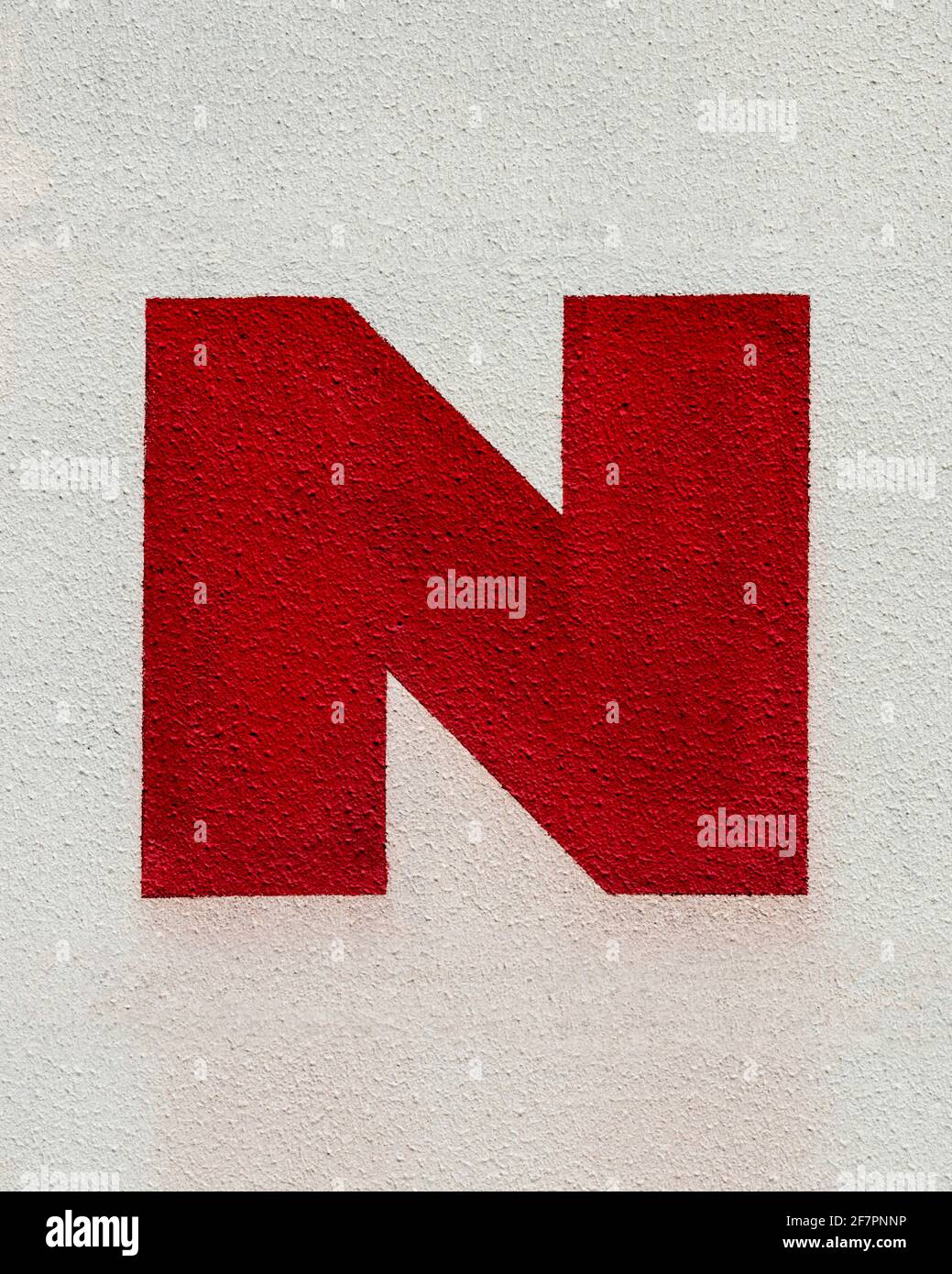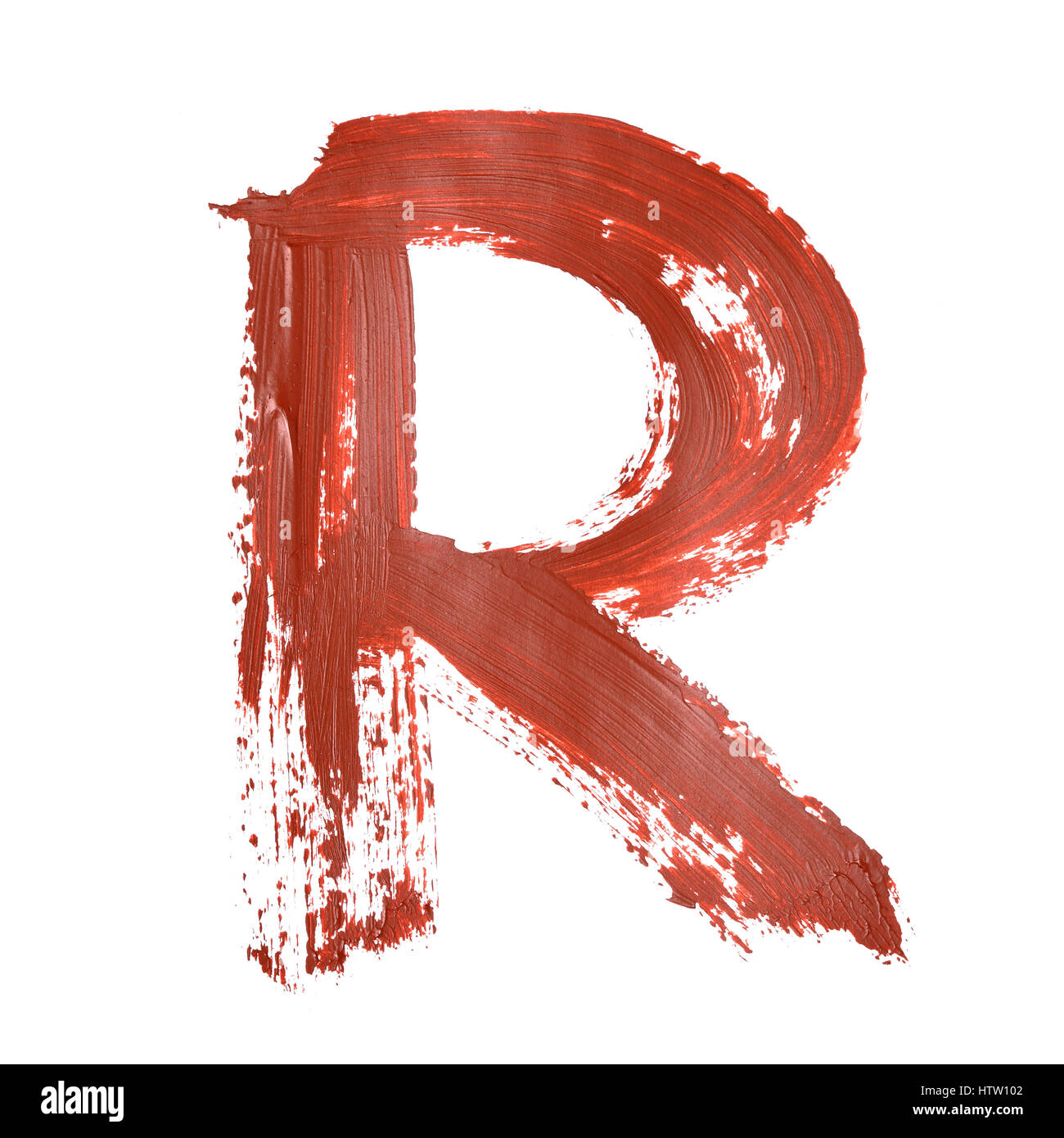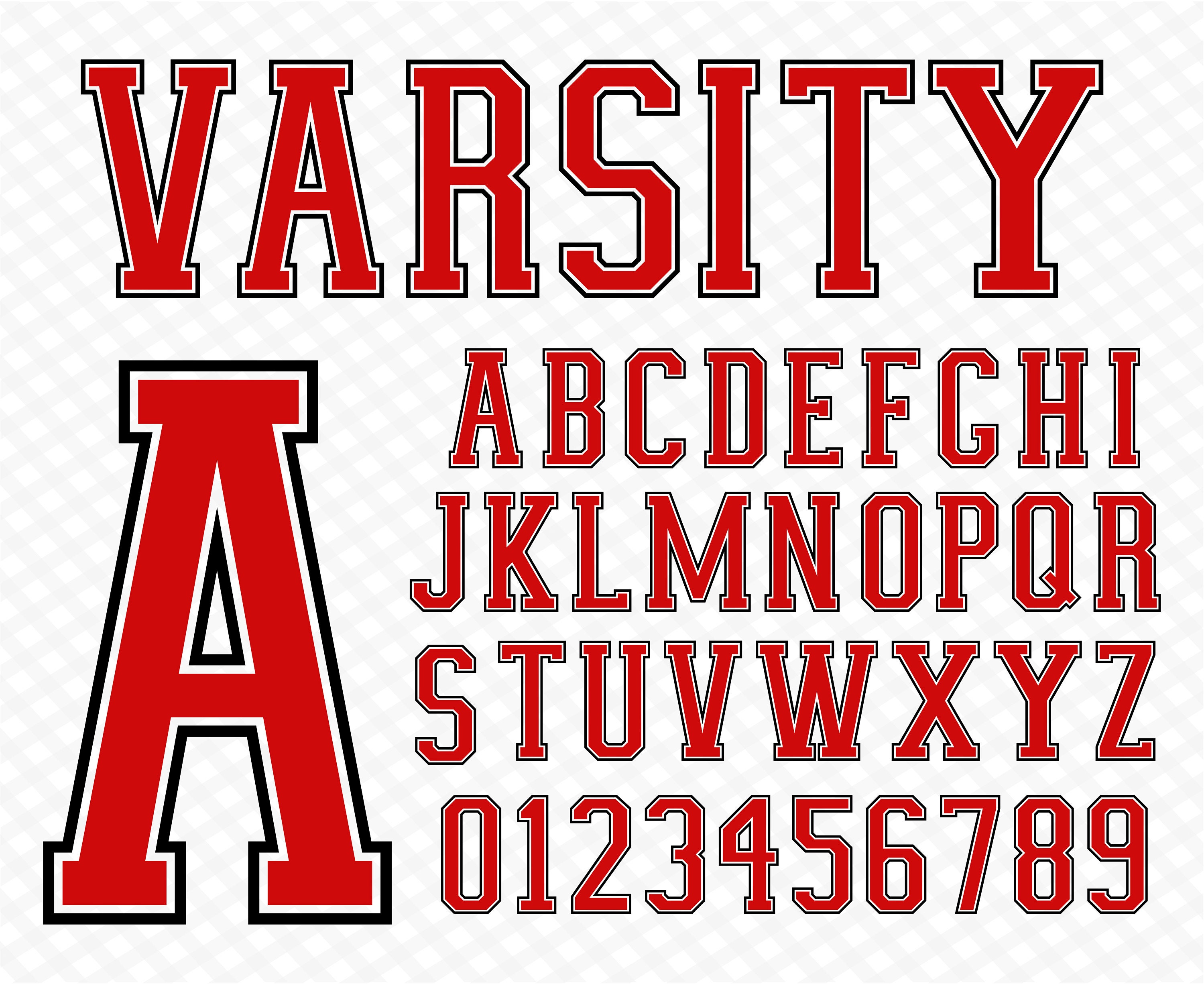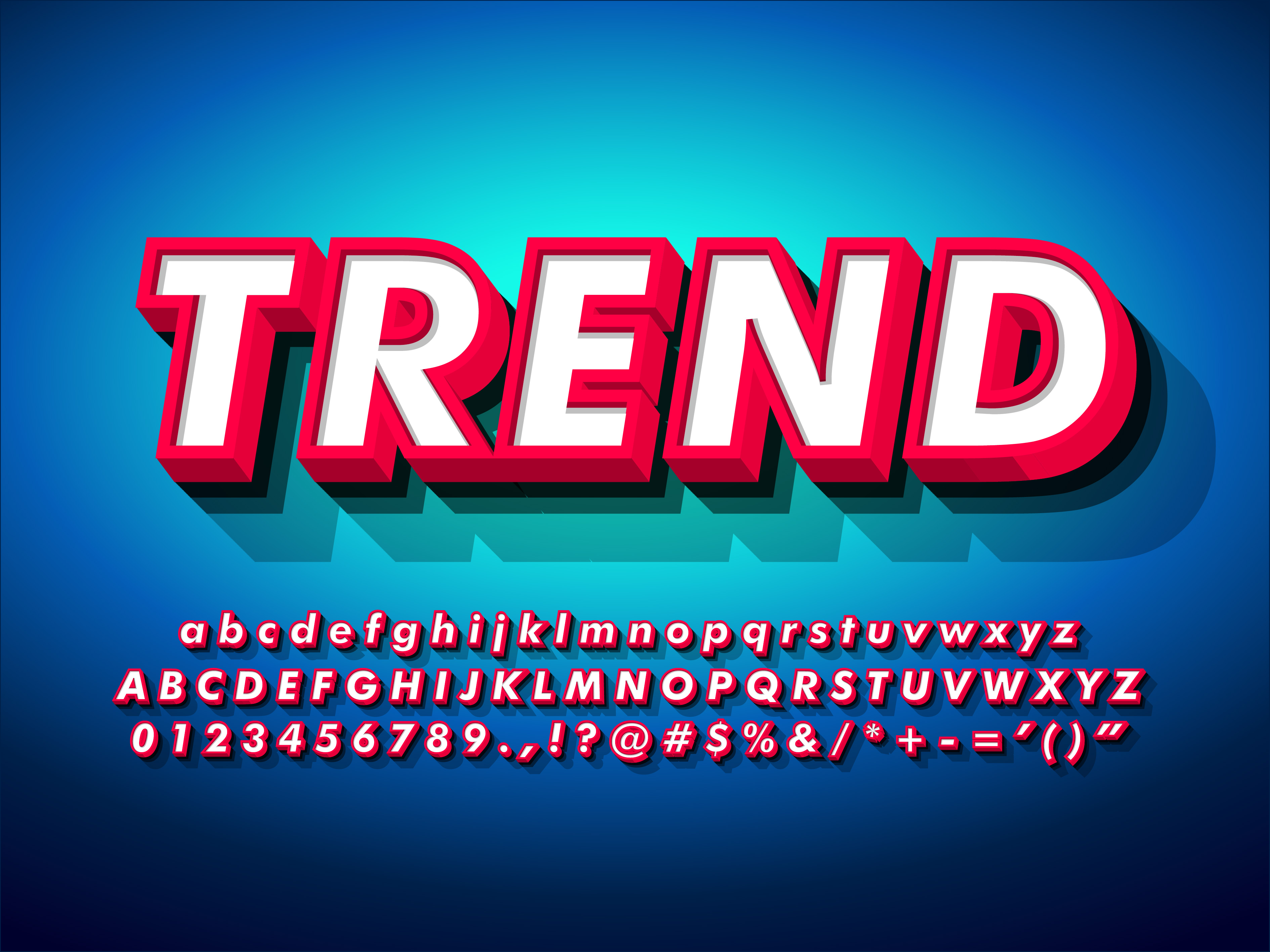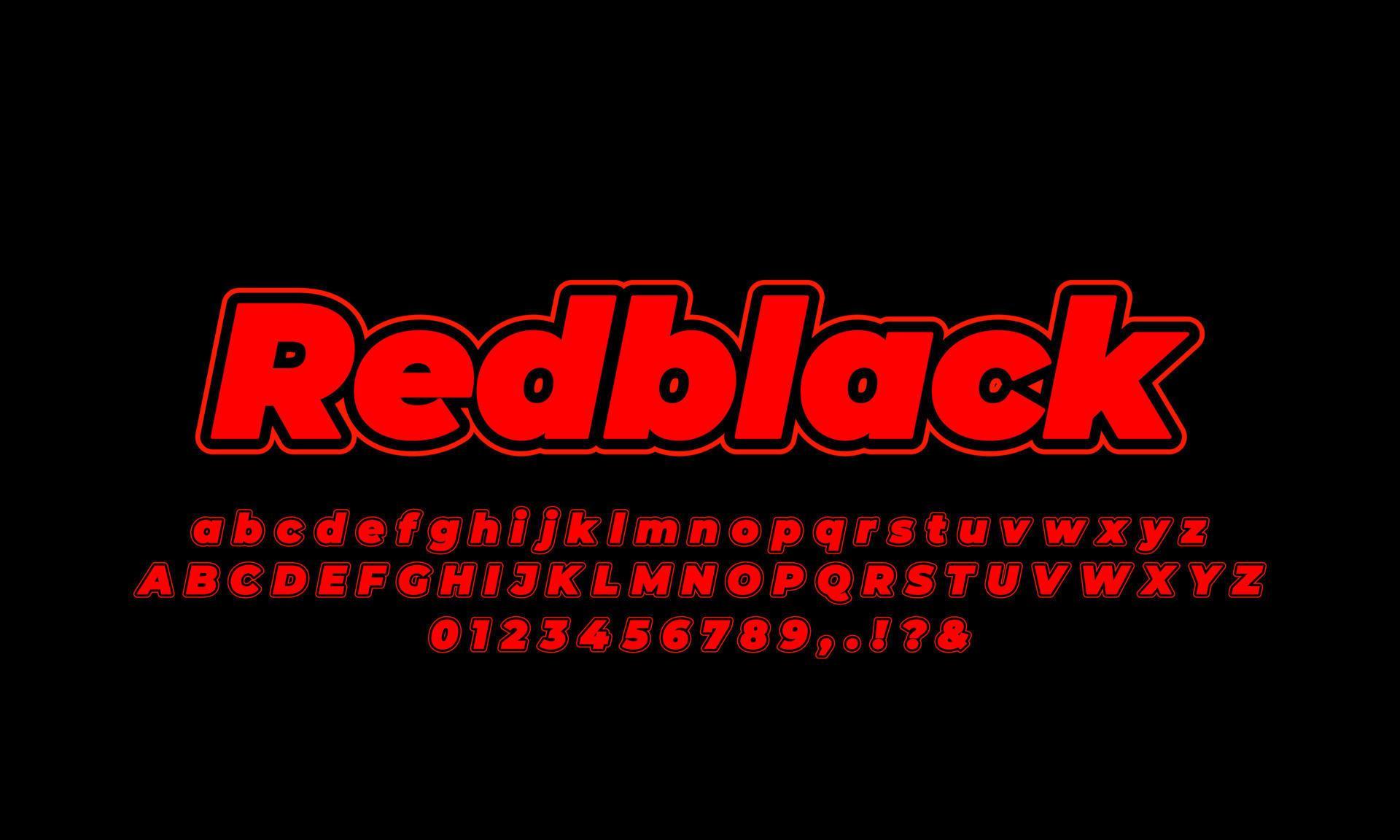
Bold Red Font Meaning . Script fonts are elegant, classic, stylish and formal. Why red and not another color? If you format that bold word or sentence into red text, you’ll have the recipient “seeing red”—literally. Rockwell, courier, museo, clarendon, and bevan. What does it mean when you receive an email where the font color for select words or sentences is red? Using red to indicate emphasis is an extra effort the sender makes to ensure the recipient understands how strongly they feel about the topic—a purposeful action with intent. You have an automatic formatting rule that is using some criterion to color the messages. Slab serifs are bold and contemporary. Most know that red is viewed as aggressive. Red can ignite passion or urgency. Should i use different font colors? When these colors paint your words,. Slab serif fonts are associated with bold, strong, modern, solid, and funky. Things such as using bold text, styling, or html formatting is really dependent on the context. We’ve compiled four handy infographics that.
When these colors paint your words,. Red can ignite passion or urgency. Rockwell, courier, museo, clarendon, and bevan. We’ve compiled four handy infographics that. You have an automatic formatting rule that is using some criterion to color the messages. Why red and not another color? Slab serifs are bold and contemporary. Red is known as an. If you format that bold word or sentence into red text, you’ll have the recipient “seeing red”—literally. Slab serif fonts are associated with bold, strong, modern, solid, and funky.
Bold Red Font Meaning You have an automatic formatting rule that is using some criterion to color the messages. Using red to indicate emphasis is an extra effort the sender makes to ensure the recipient understands how strongly they feel about the topic—a purposeful action with intent. Most know that red is viewed as aggressive. Slab serif fonts are associated with bold, strong, modern, solid, and funky. Rockwell, courier, museo, clarendon, and bevan. You have an automatic formatting rule that is using some criterion to color the messages. Slab serifs are bold and contemporary. When these colors paint your words,. We’ve compiled four handy infographics that. Red can ignite passion or urgency. Things such as using bold text, styling, or html formatting is really dependent on the context. What does it mean when you receive an email where the font color for select words or sentences is red? If you format that bold word or sentence into red text, you’ll have the recipient “seeing red”—literally. Script fonts are elegant, classic, stylish and formal. You just have to use good. Red is known as an.
Modern Strong 3d Red Font 555761 Vector Art at Vecteezy Bold Red Font Meaning What does it mean when you receive an email where the font color for select words or sentences is red? Why red and not another color? Script fonts are elegant, classic, stylish and formal. You just have to use good. Using red to indicate emphasis is an extra effort the sender makes to ensure the recipient understands how strongly they. Bold Red Font Meaning.
15 Free Bold Fonts You Should Be Using Creative Beacon Bold Red Font Meaning If you format that bold word or sentence into red text, you’ll have the recipient “seeing red”—literally. Slab serifs are bold and contemporary. Using red to indicate emphasis is an extra effort the sender makes to ensure the recipient understands how strongly they feel about the topic—a purposeful action with intent. Red is known as an. Slab serif fonts are. Bold Red Font Meaning.
Premium Vector Bold red gloss text style editable font effect Bold Red Font Meaning Things such as using bold text, styling, or html formatting is really dependent on the context. Most know that red is viewed as aggressive. If you format that bold word or sentence into red text, you’ll have the recipient “seeing red”—literally. What does it mean when you receive an email where the font color for select words or sentences is. Bold Red Font Meaning.
Best Bold Fonts in Canva for Eye Catching Design Canva Templates Bold Red Font Meaning Why red and not another color? Most know that red is viewed as aggressive. Slab serifs are bold and contemporary. If you format that bold word or sentence into red text, you’ll have the recipient “seeing red”—literally. Slab serif fonts are associated with bold, strong, modern, solid, and funky. We’ve compiled four handy infographics that. Script fonts are elegant, classic,. Bold Red Font Meaning.
Bold Font Bold Letters Font Bold Monogram Font Block Font Bold Style Bold Red Font Meaning If you format that bold word or sentence into red text, you’ll have the recipient “seeing red”—literally. Slab serif fonts are associated with bold, strong, modern, solid, and funky. You have an automatic formatting rule that is using some criterion to color the messages. Should i use different font colors? Things such as using bold text, styling, or html formatting. Bold Red Font Meaning.
Bold Strong Font Modern 3d Alphabet Red Isometric Text Effect Vector Bold Red Font Meaning Slab serif fonts are associated with bold, strong, modern, solid, and funky. Red is known as an. You just have to use good. Should i use different font colors? Red can ignite passion or urgency. If you format that bold word or sentence into red text, you’ll have the recipient “seeing red”—literally. Why red and not another color? Rockwell, courier,. Bold Red Font Meaning.
Red Font Text Effect Generator Bold Red Font Meaning Script fonts are elegant, classic, stylish and formal. You just have to use good. What does it mean when you receive an email where the font color for select words or sentences is red? Using red to indicate emphasis is an extra effort the sender makes to ensure the recipient understands how strongly they feel about the topic—a purposeful action. Bold Red Font Meaning.
Red Font With With Thin Black Outline White Highlight And Engraved Bold Red Font Meaning What does it mean when you receive an email where the font color for select words or sentences is red? Red can ignite passion or urgency. Things such as using bold text, styling, or html formatting is really dependent on the context. Using red to indicate emphasis is an extra effort the sender makes to ensure the recipient understands how. Bold Red Font Meaning.
red and black line bold alphabet or letter text effect or font effect Bold Red Font Meaning Using red to indicate emphasis is an extra effort the sender makes to ensure the recipient understands how strongly they feel about the topic—a purposeful action with intent. What does it mean when you receive an email where the font color for select words or sentences is red? Slab serif fonts are associated with bold, strong, modern, solid, and funky.. Bold Red Font Meaning.